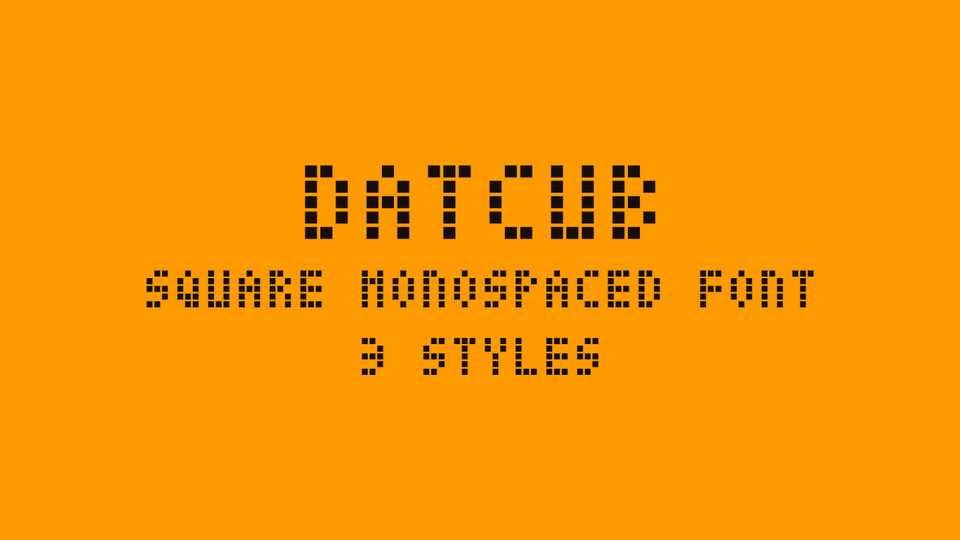
Download DatCub font, a square monospaced typeface based on a 3×5 grid layout. DatCub font is perfectly suited for poster, small text as well as apps and gaming.